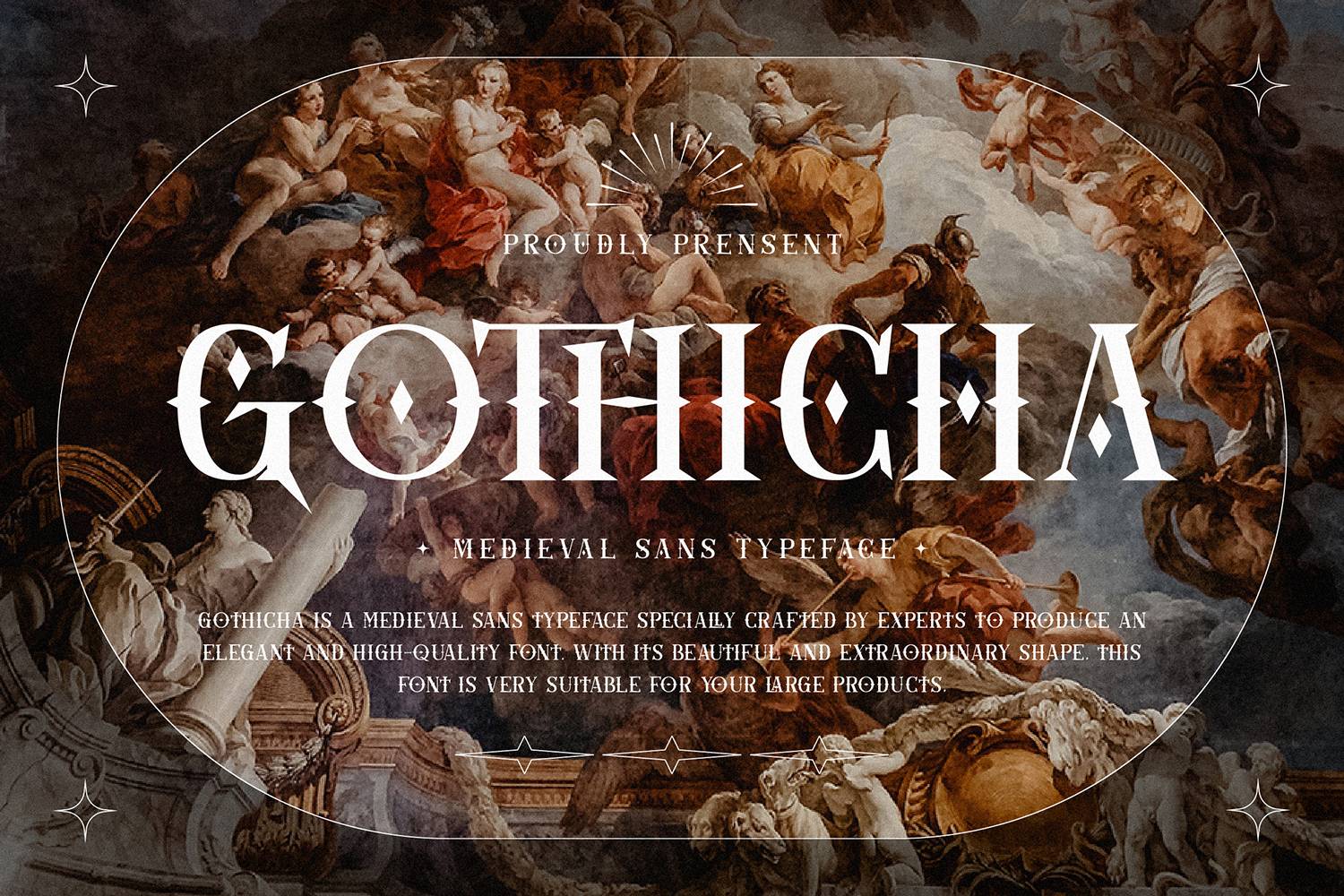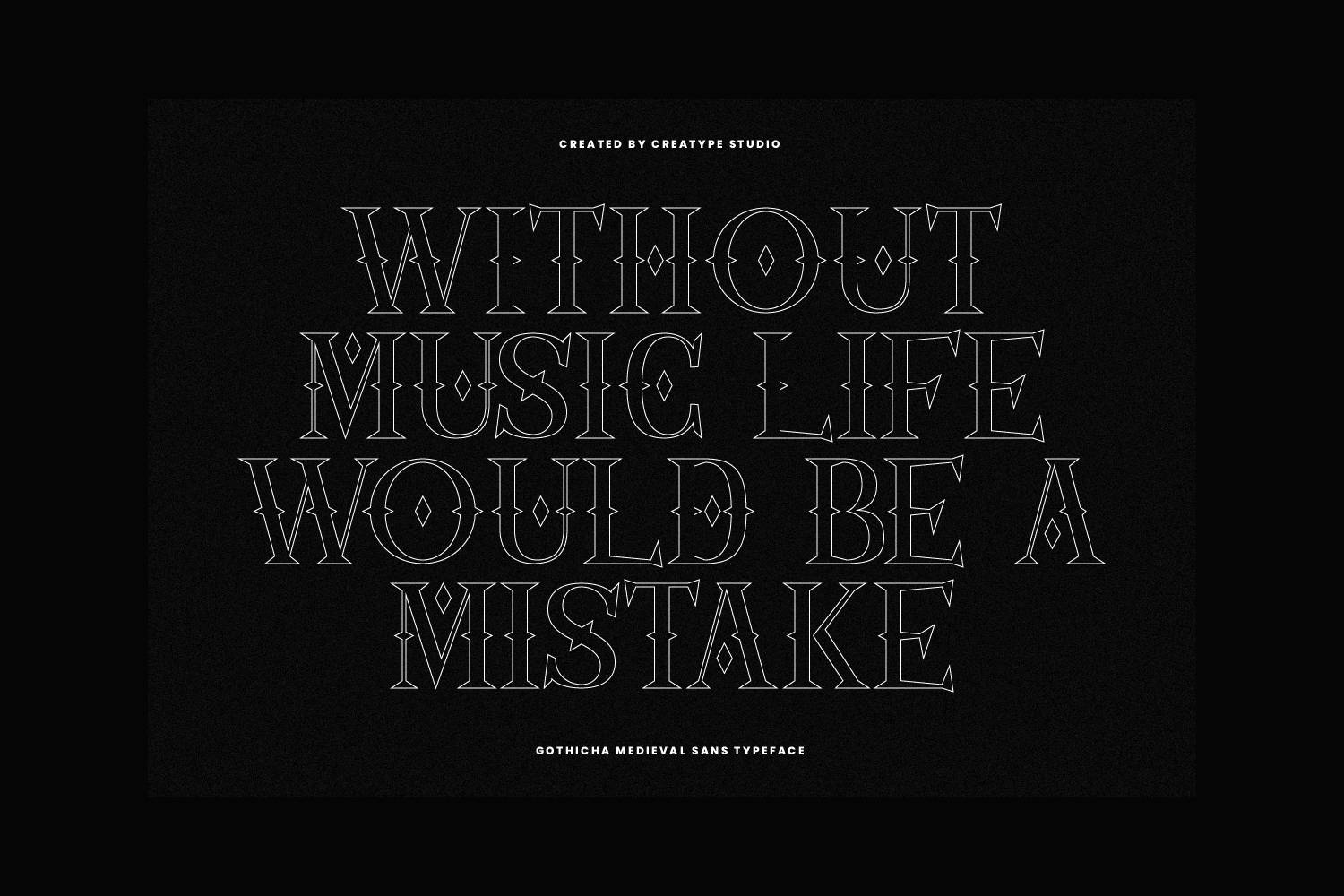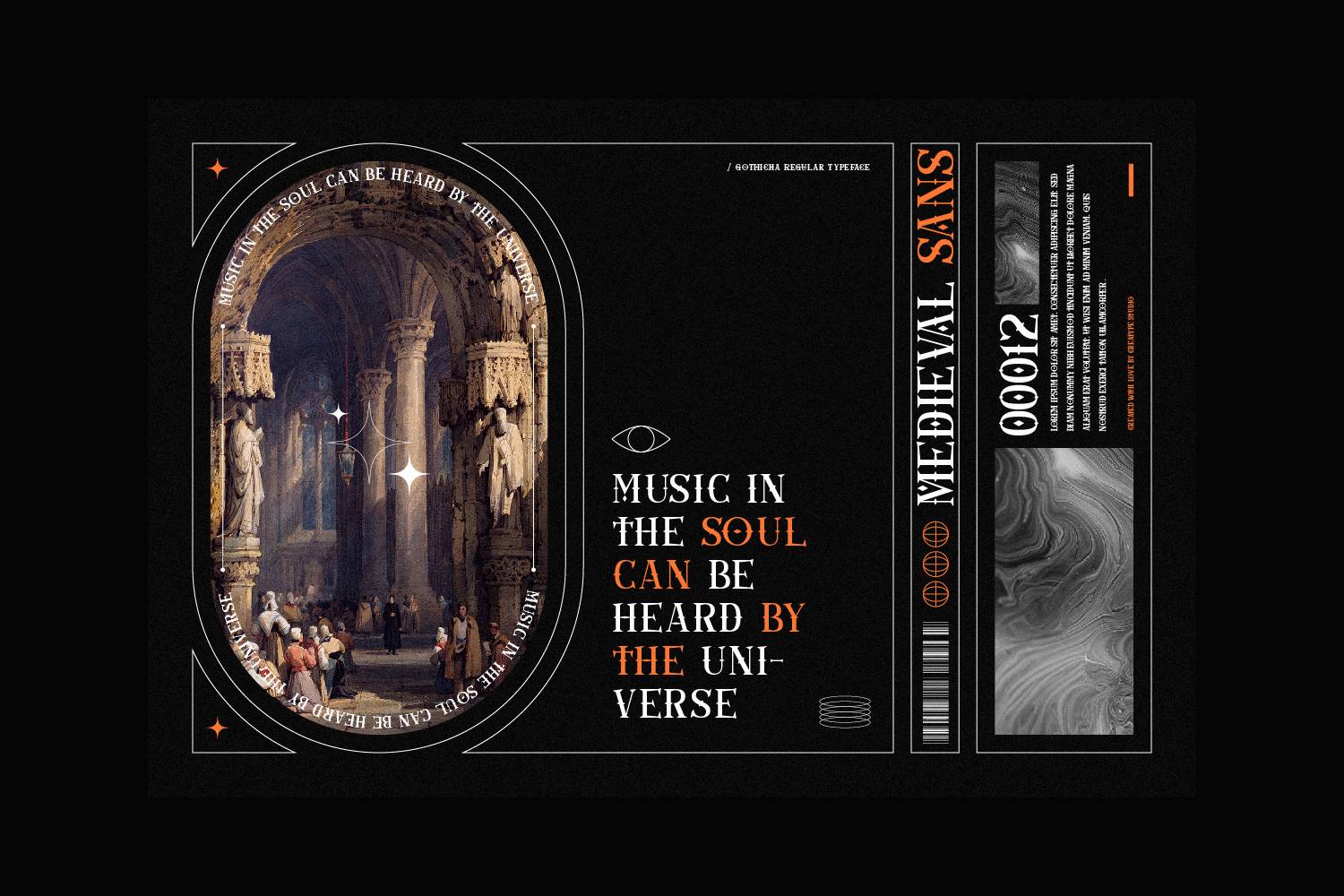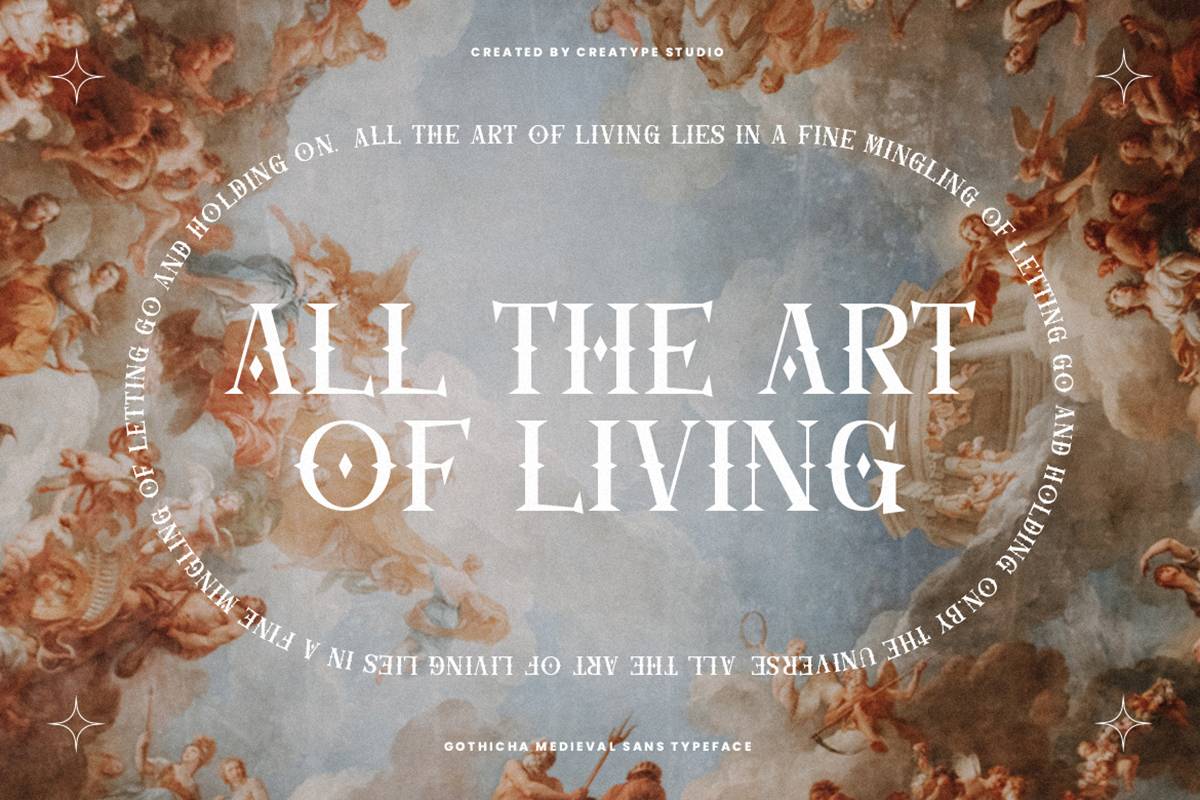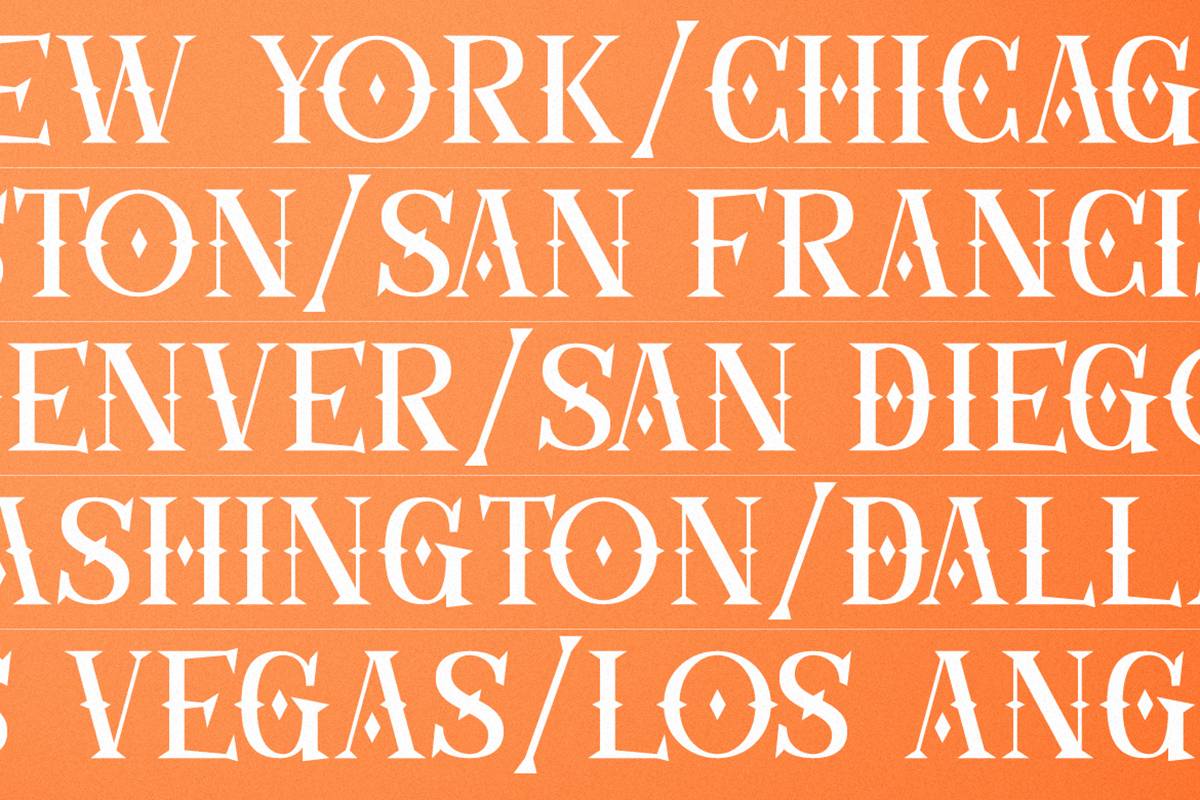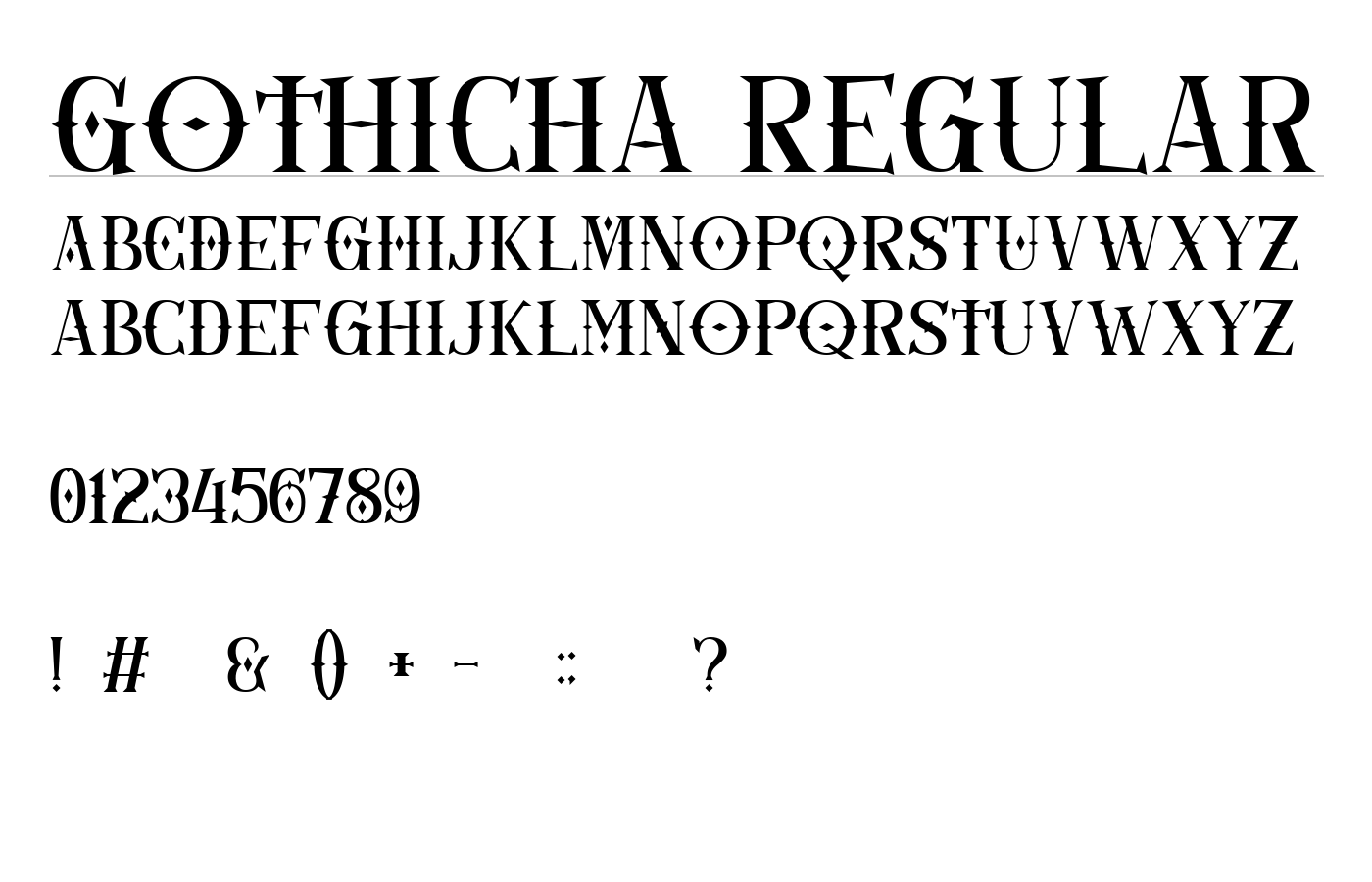
Gothicha is a bold, condensed serif font with a distinctive Gothic flair, characterized by sharp, high-contrast strokes and decorative diamond-shaped details within the letterforms. Its elegant yet dramatic style makes it ideal for headlines, logos, and branding projects that seek a vintage or medieval-inspired look with a strong, commanding presence. This font works well for fashion, luxury packaging, and editorial designs where a striking and ornamental typeface is needed to capture attention.
Gothicha Font
About Gothicha Font